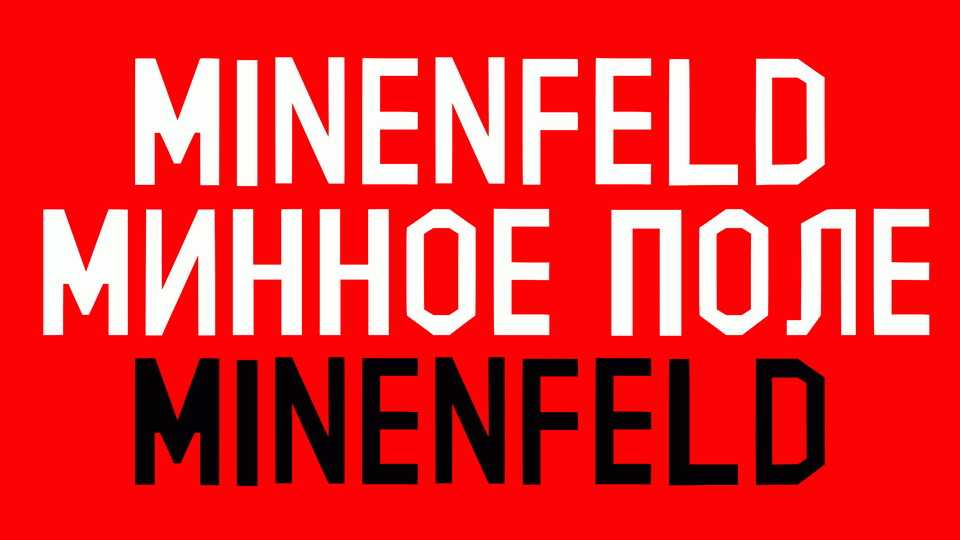
Download Minencraft font, a bold display typeface with sharp and solid look. Minencraft font perfectly fits for posters, headlines, album artworks and more.
Designer: Michail Zhukov